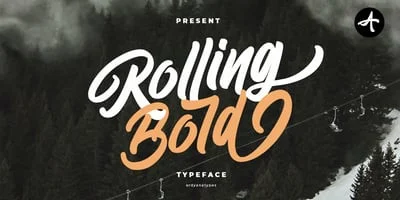
Rolling Bold Font
Rolling Bold Font is perfect for dynamic sports branding, powerful automotive logos, energetic fitness campaigns, bold action movie titles, high-impact advertising headlines, extreme sports merchandise, adventure travel promotions, and commanding corporate presentations. This powerful typeface excels in high-energy applications, action-oriented designs, and any project requiring unstoppable momentum that captures movement and commanding presence through bold visual impact.
What makes Rolling Bold Font exciting is its incredible ability to convey unstoppable motion and powerful energy through dramatically thick letterforms that create immediate visual impact and dynamic movement. The font features boldly crafted characters with rolling curves and momentum-driven proportions that evoke feelings of power and forward motion, making it ideal for brands seeking to establish dominant market presence and communicate strength through typography. Its commanding weight ensures maximum visibility and unforgettable brand recognition.
Rolling Bold Font family includes multiple weights and styles: Regular, Extra Bold, Ultra Bold, Black variations, and condensed versions for space-efficient power applications. Each family member maintains the distinctive rolling character while offering comprehensive design solutions for high-impact campaigns, from substantial body text to thunderous headlines that dominate visual landscapes and command immediate attention through sheer typographic force.
Whether you're designing powerful brand identities or creating high-impact marketing campaigns, Rolling Bold Font provides the perfect typography solution for maximum visual impact needs. This font transforms ordinary text into commanding visual statements that communicate strength and unstoppable momentum. Action brands and power-focused companies choose this typeface for its ability to convey dynamic energy through dramatically crafted letterforms that roll through designs with unstoppable visual force.